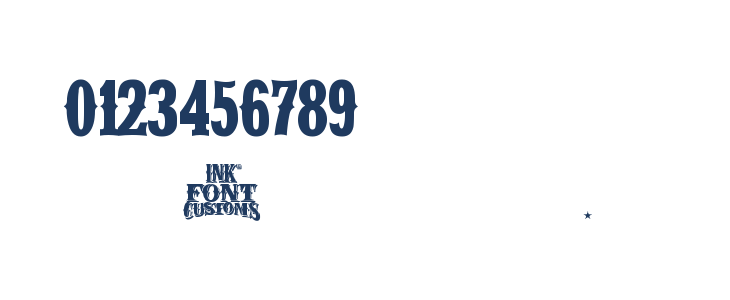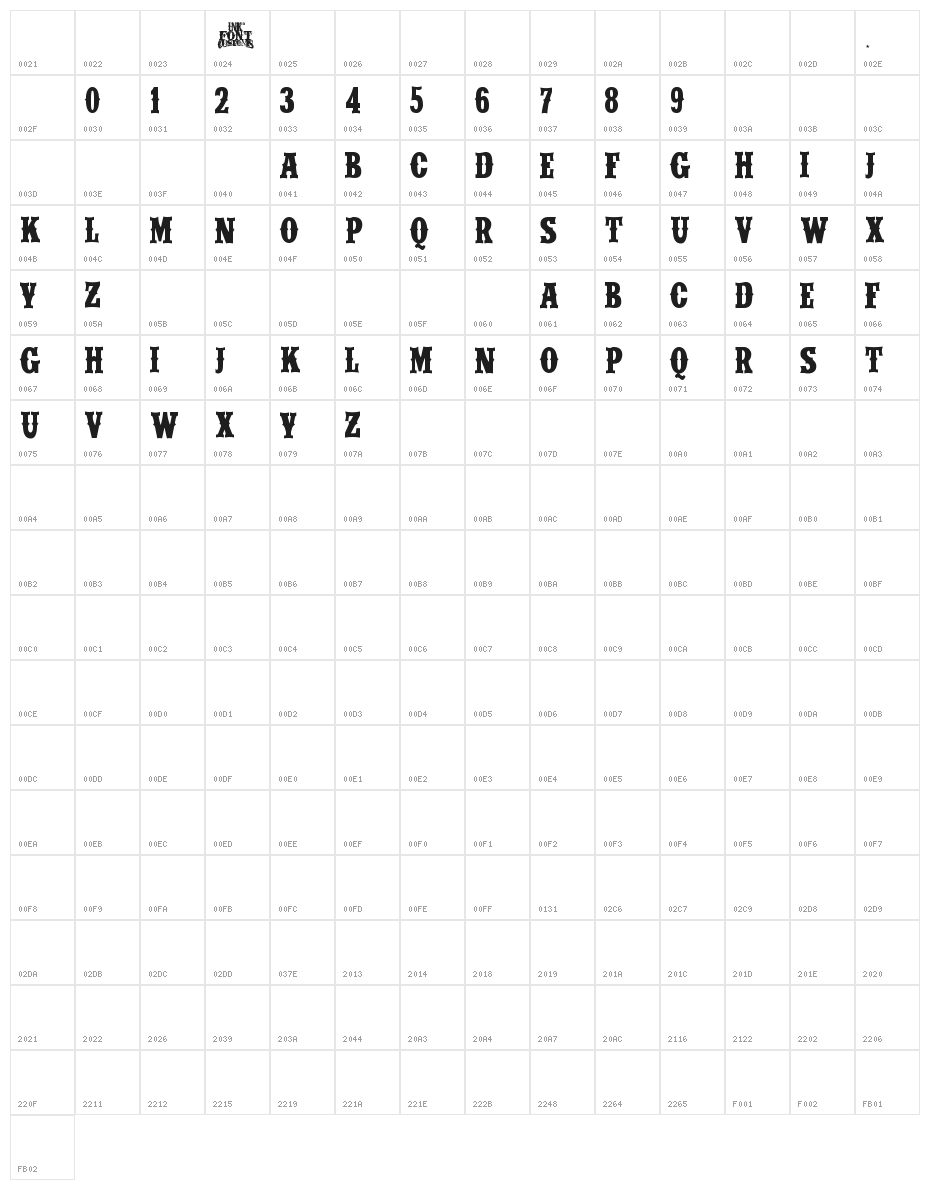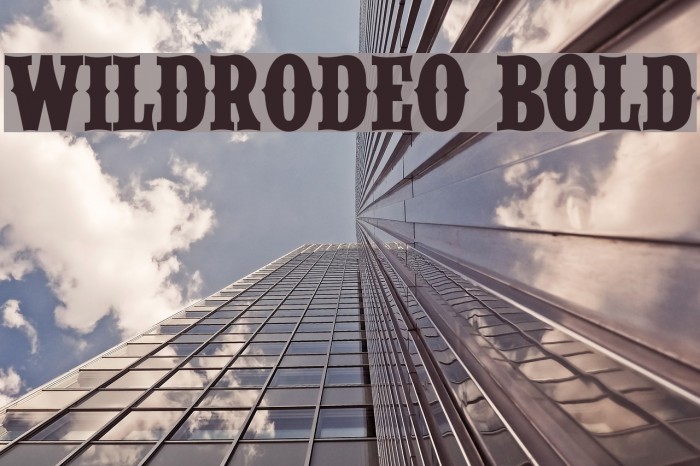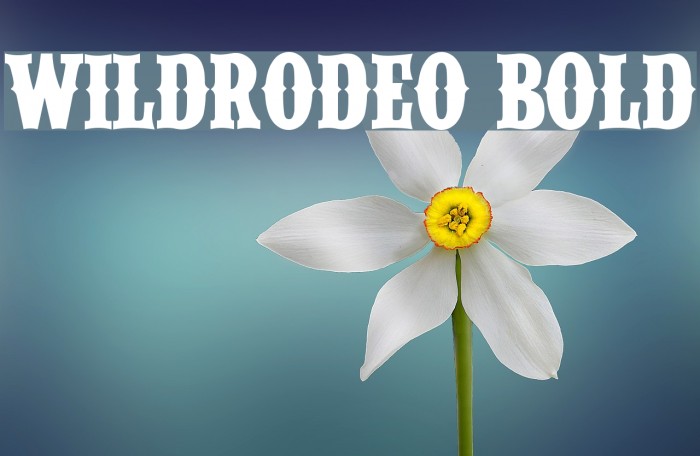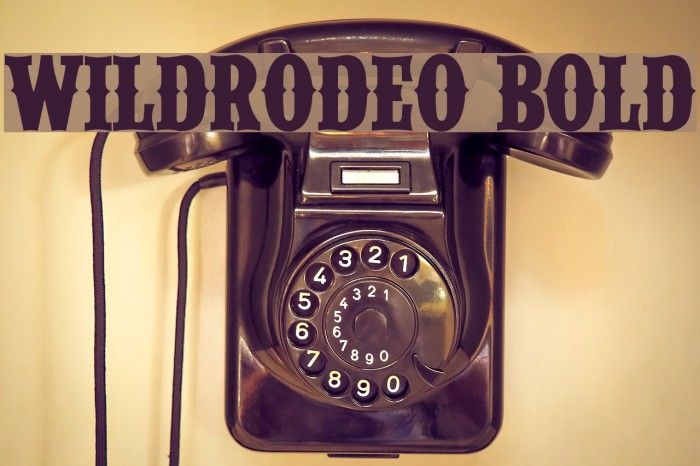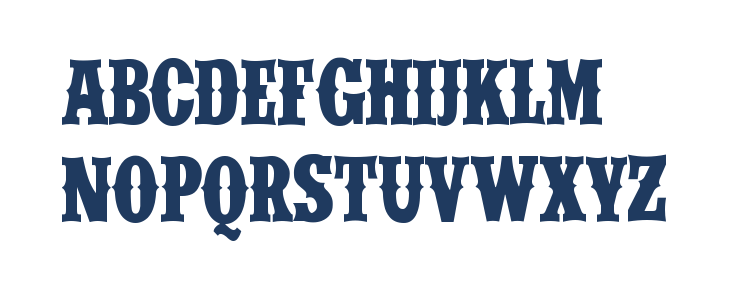
WILDRODEO Bold Font
WILDRODEO Bold Description
This bold, decorative font exudes a rugged, western-inspired aesthetic, perfect for capturing attention with its strong, impactful presence. The characters are characterized by thick, blocky serifs and a slightly condensed form, giving them a robust and sturdy appearance. The uppercase letters are particularly striking, with a distinctive flair that evokes a sense of adventure and the wild frontier. The numbers and special characters maintain this bold style, ensuring consistency across all elements. The font's unique design makes it ideal for projects that require a touch of the wild west or a vintage, rustic feel.
| Proposed Projects | Ideal for posters, signage, branding, and any project needing a vintage or western theme. |